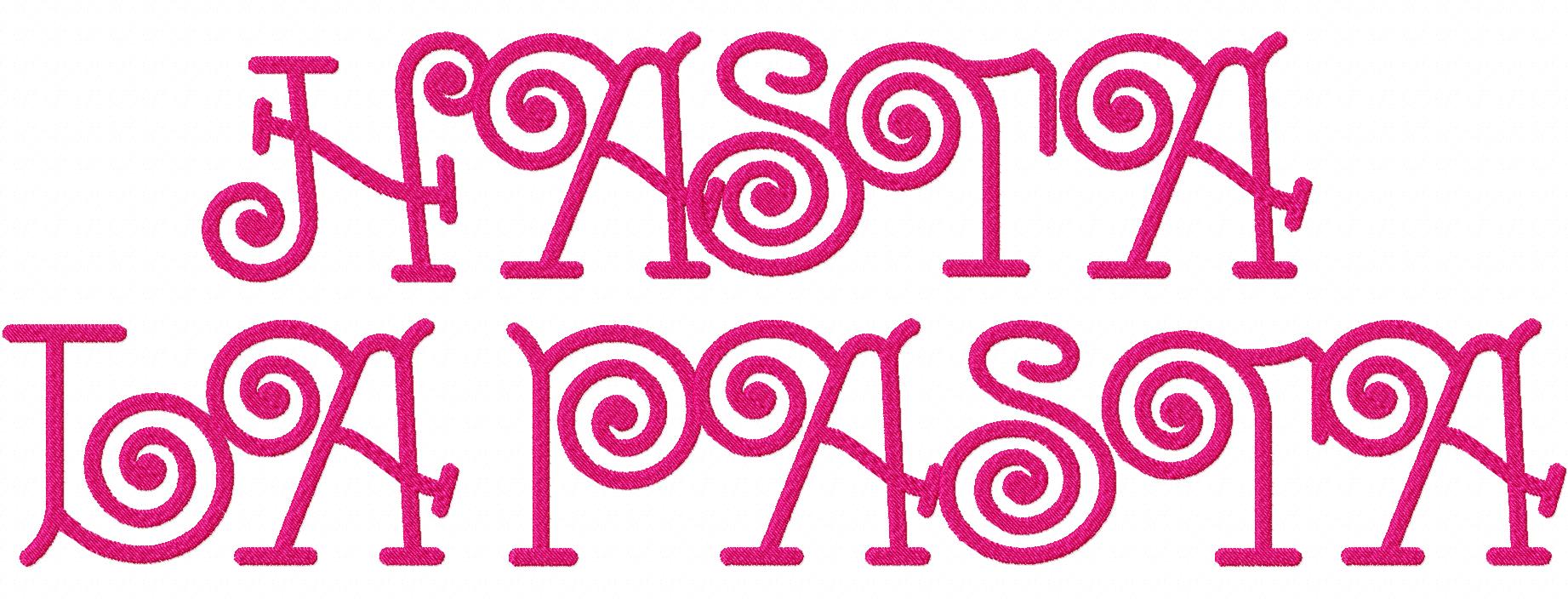
Add this curly design to any project that needs a bit of fun!
The Hasta La Pasta Machine Embroidery Font Set includes all Uppercase Letters, Lowercase Letters and Numbers in all of the following sizes: 1" 2" & 3"